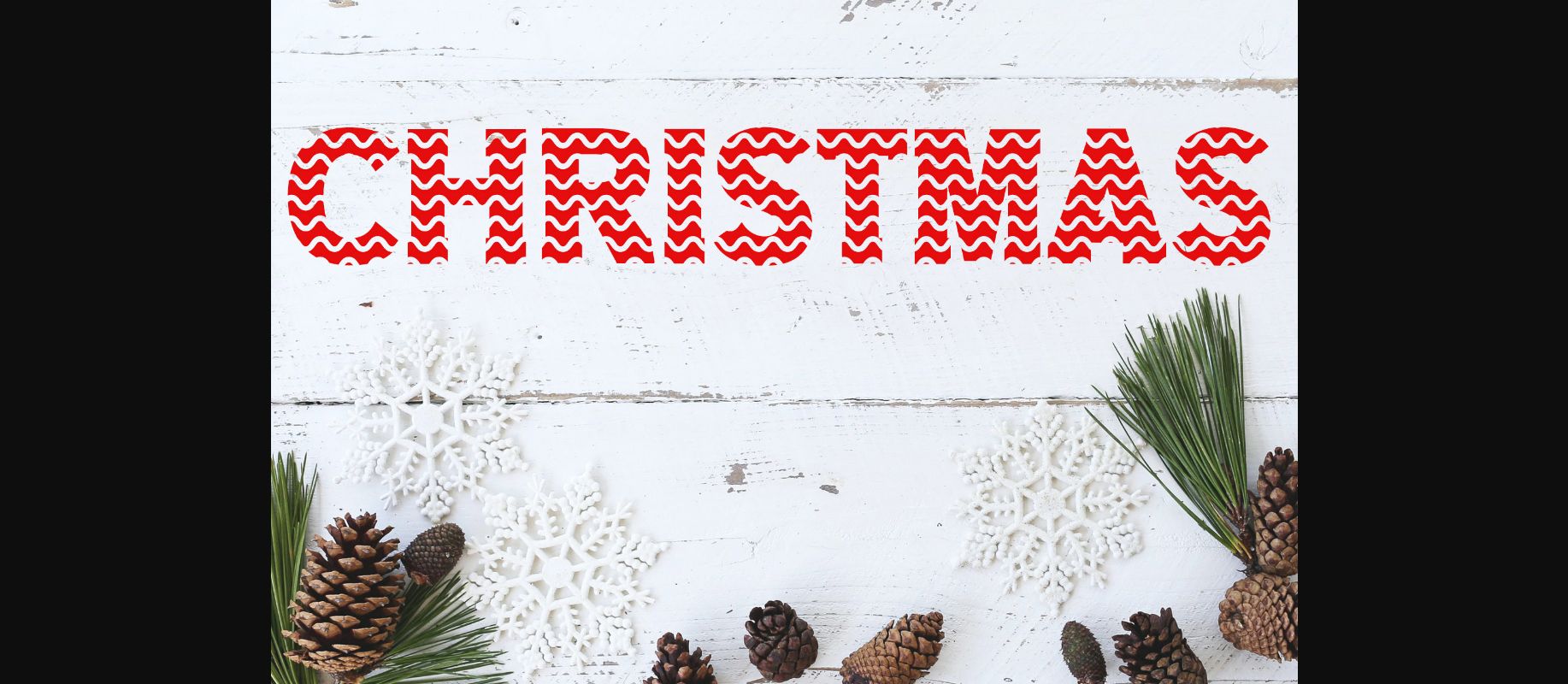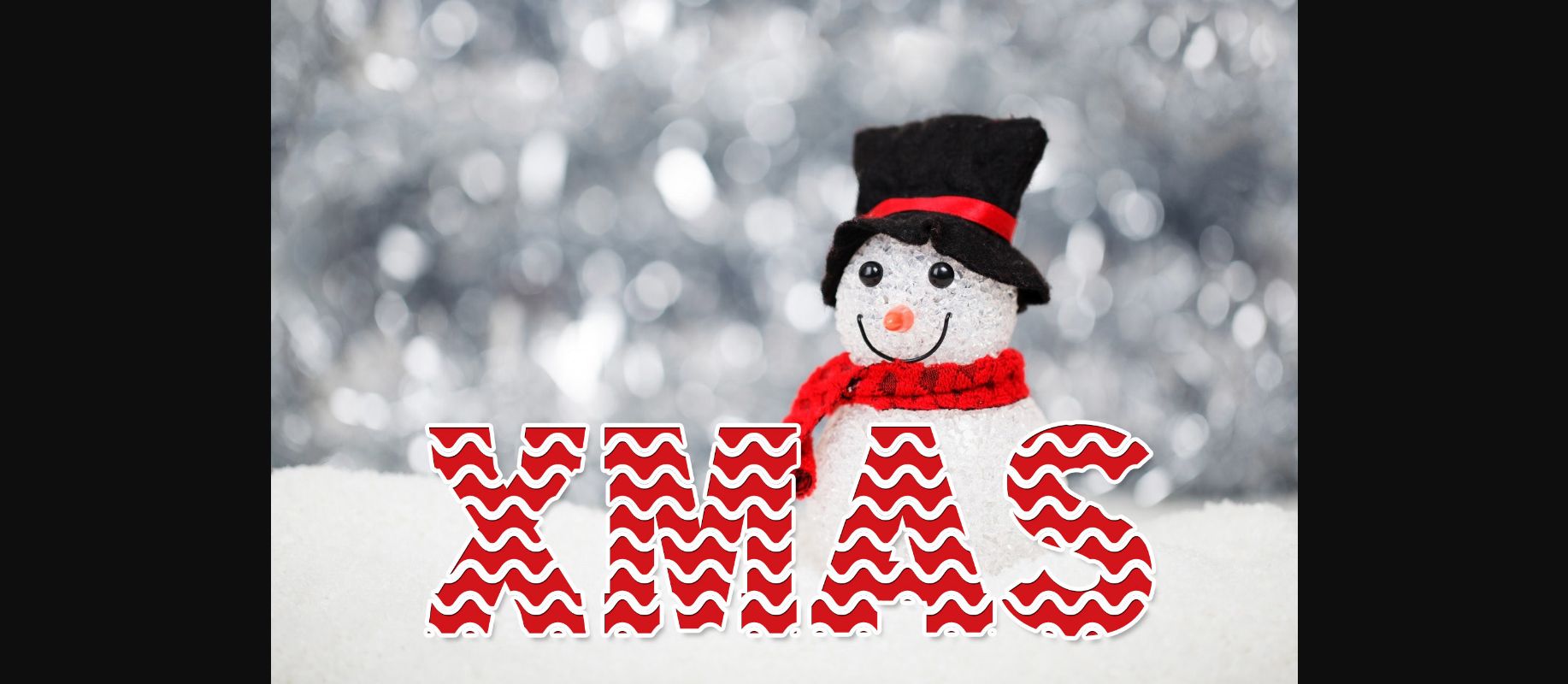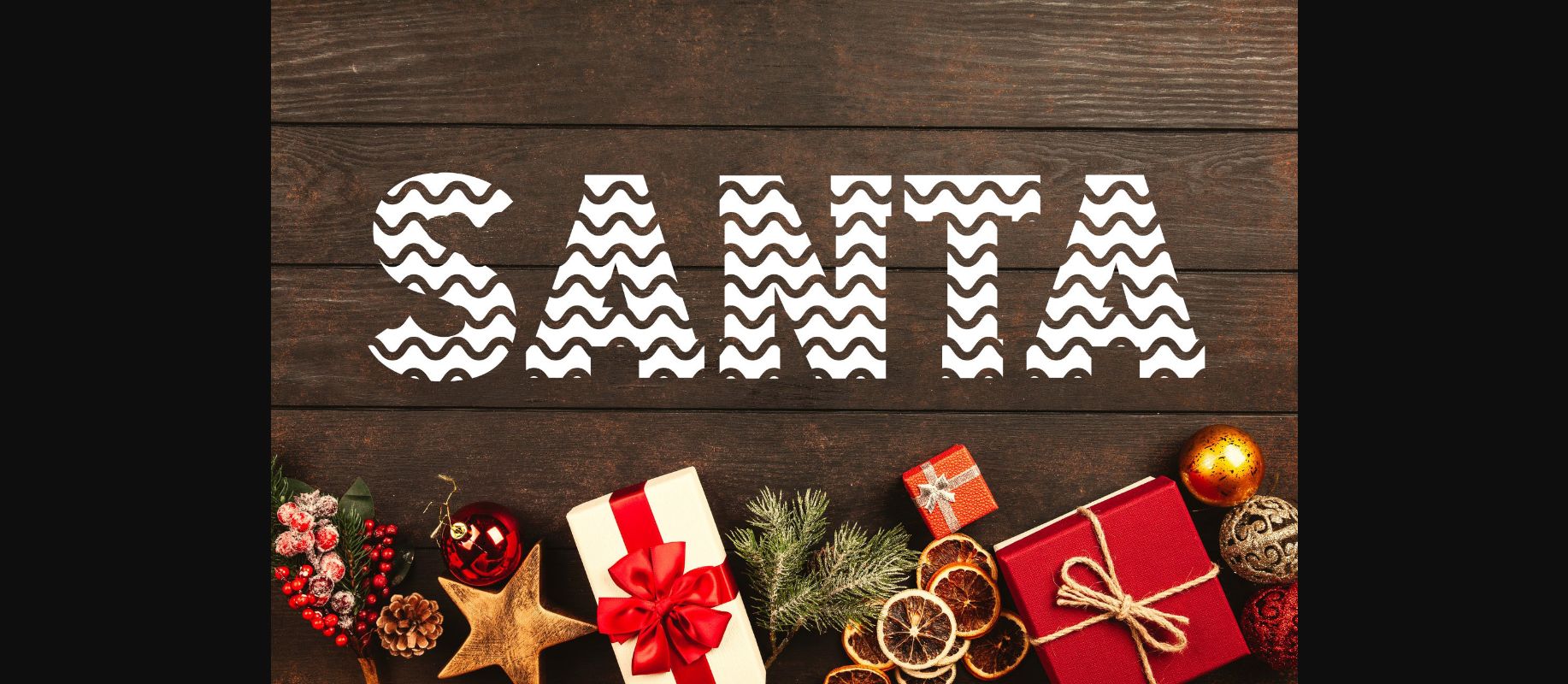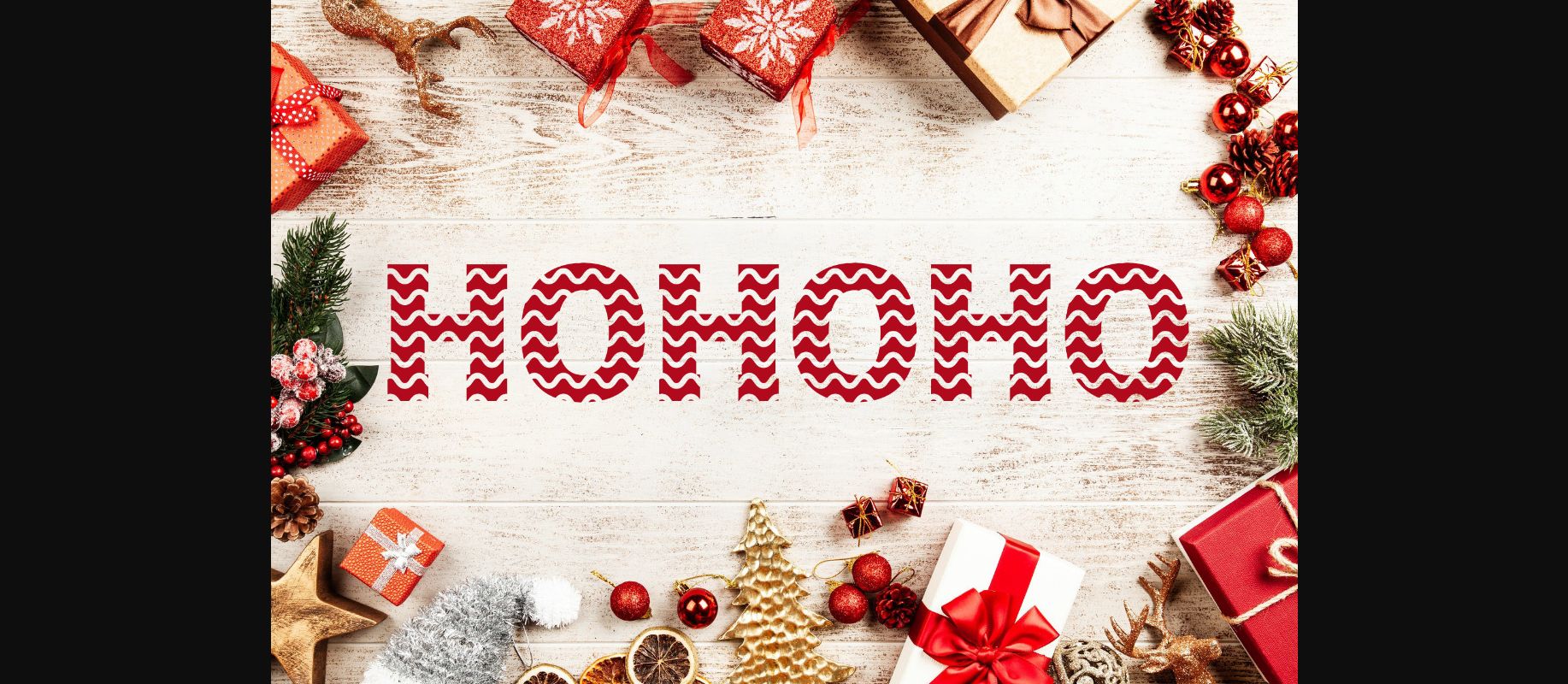
Christmas Font
Christmas is a festive and warm decorative font. Add it to each of your wintery designs, such as cards, letters or crafts and you will love the outcome.